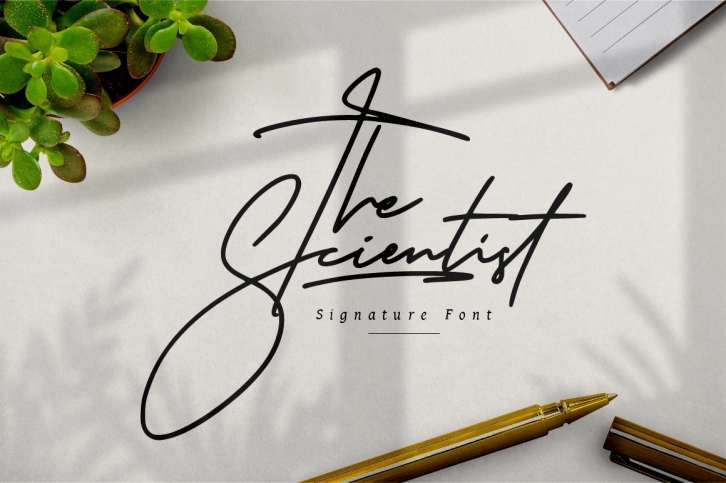
The Scientist Signature is a great font that was designed by PutraCetol Studio. Imagine the amount of combinations you can create using this font! The archive is 15.81 MB and it was released on May 5, 2020. The Scientist Signature looks beautiful on wedding invitations, greeting cards, logos, posters, labels, t-shirt designs, logos, business cards and is perfect for use in ink or watercolor works, fashion, magazines, packaging and food menus, children's books and more!